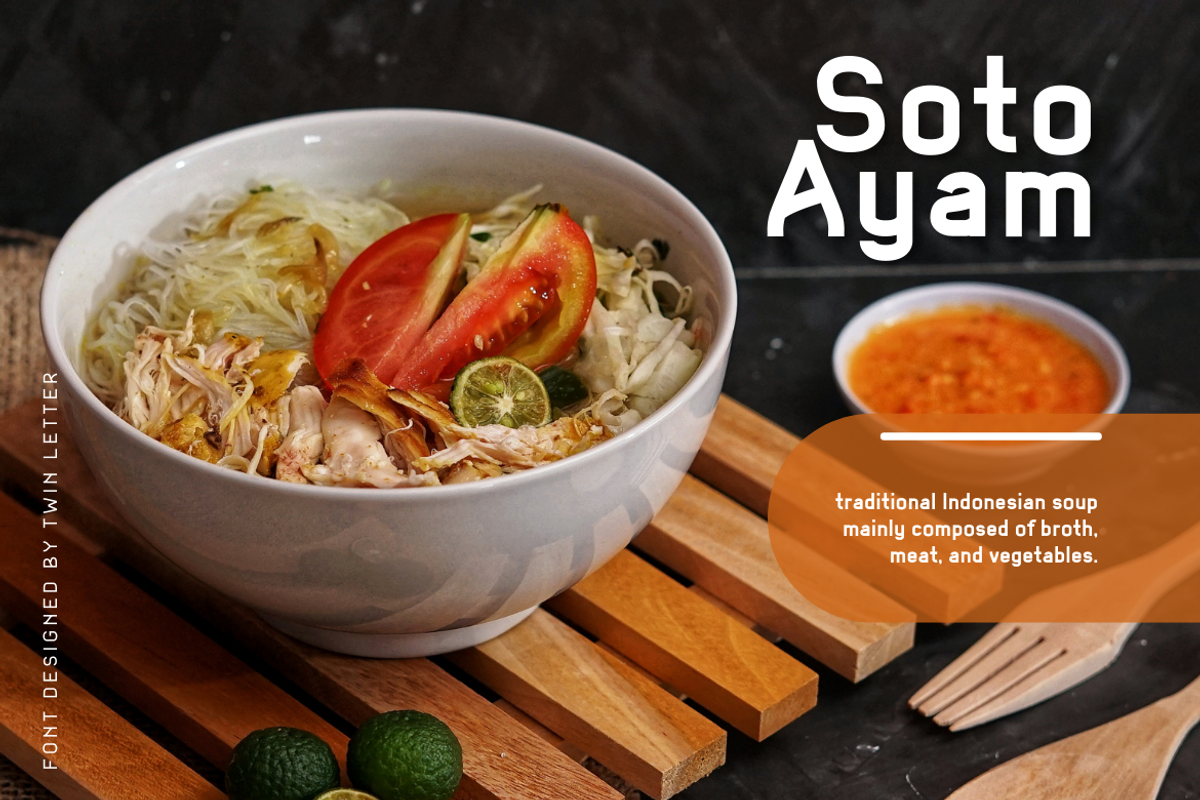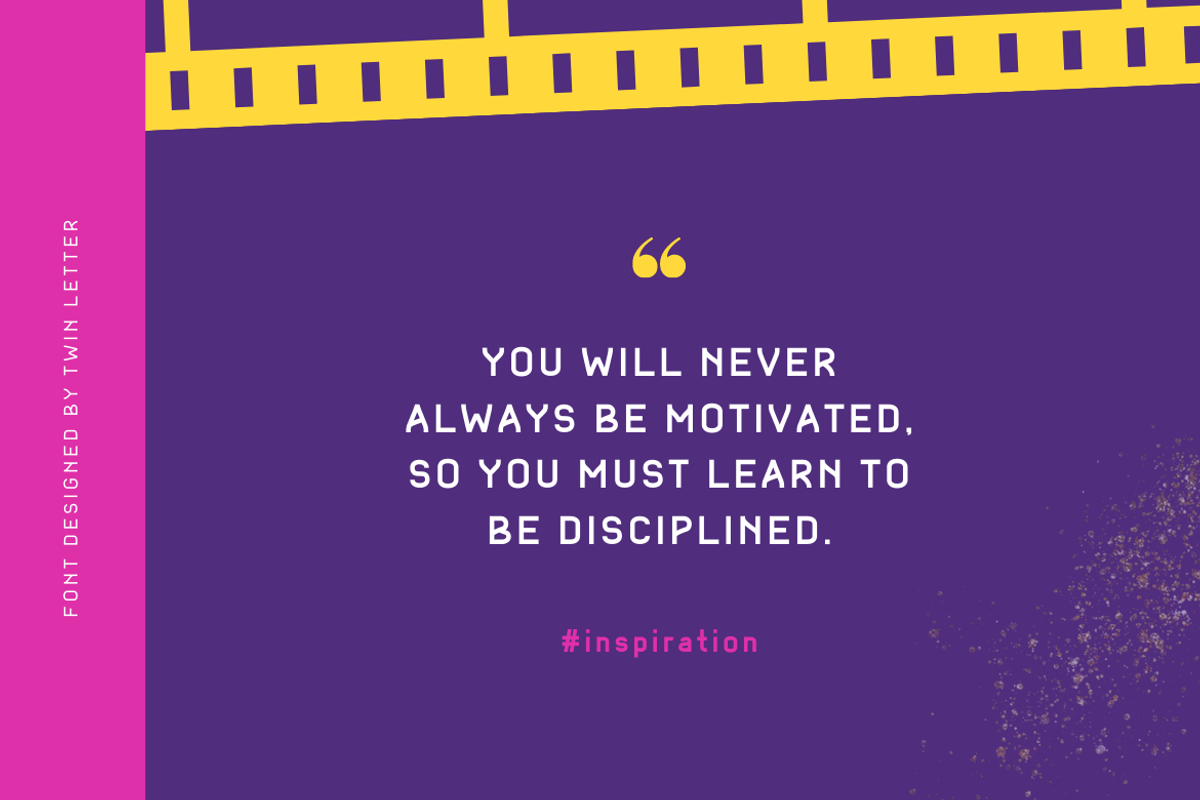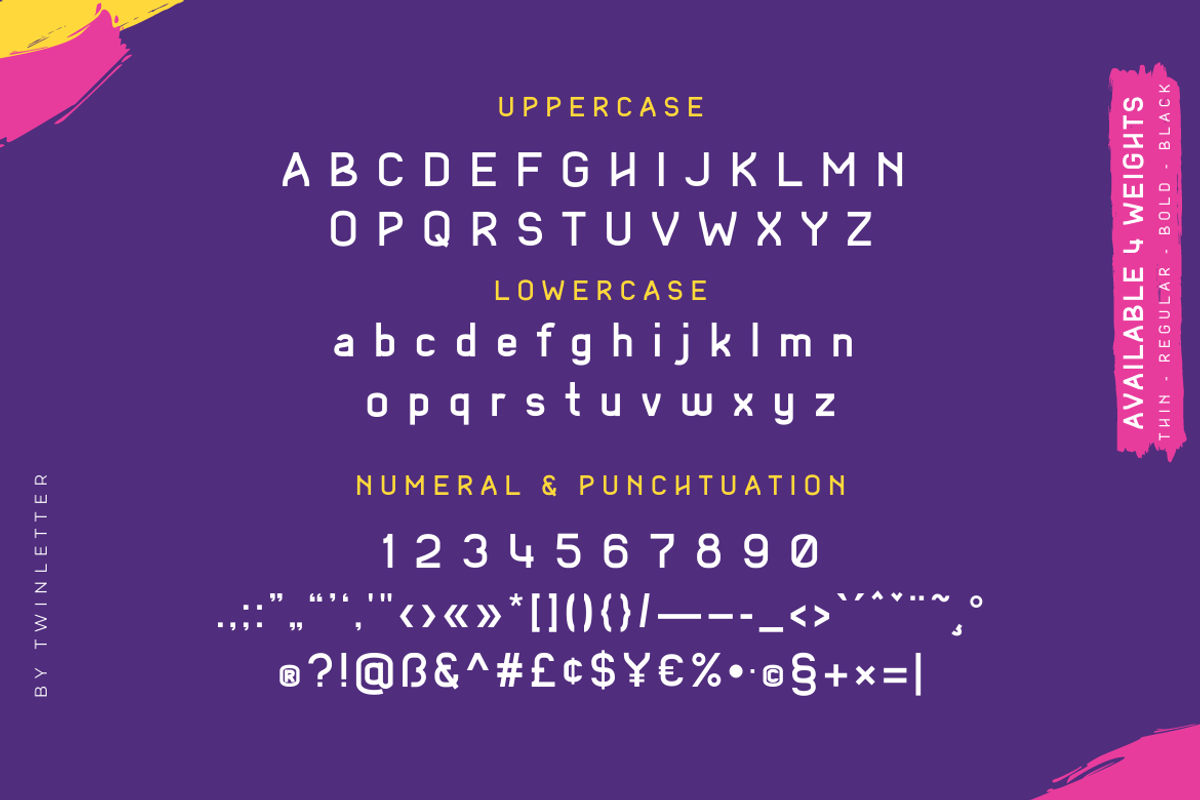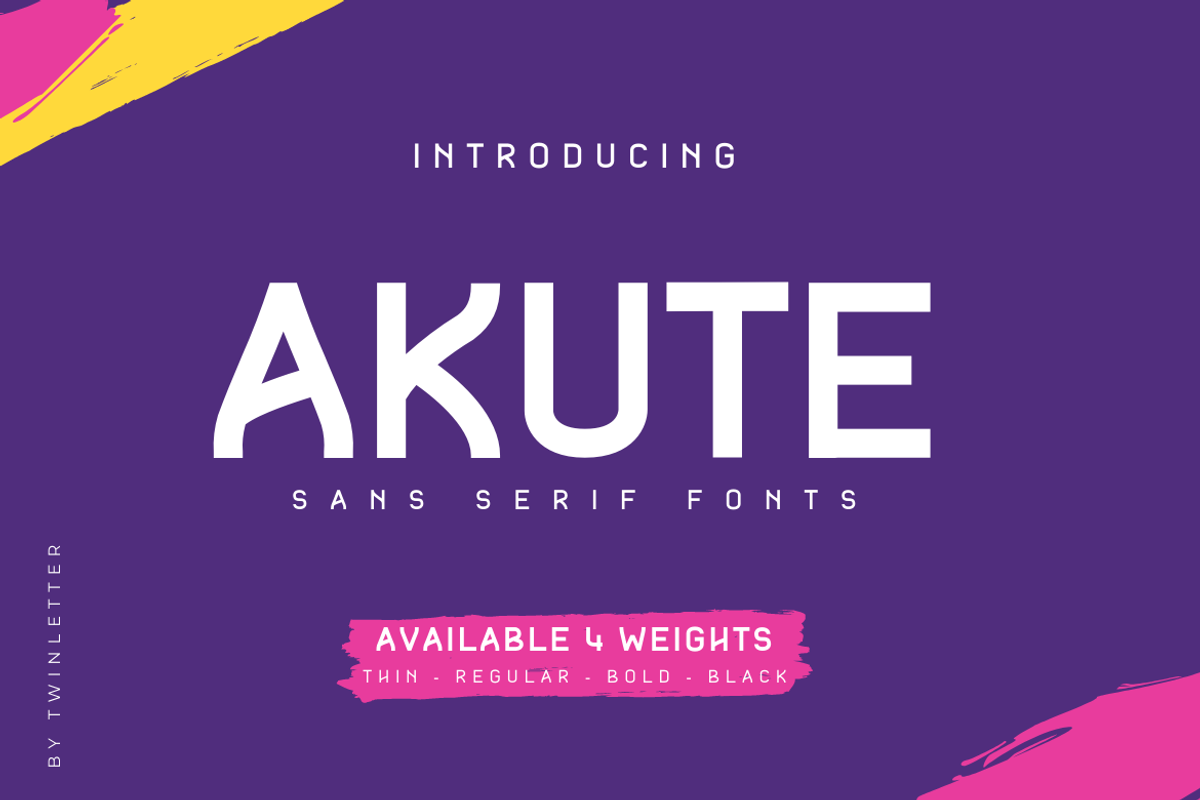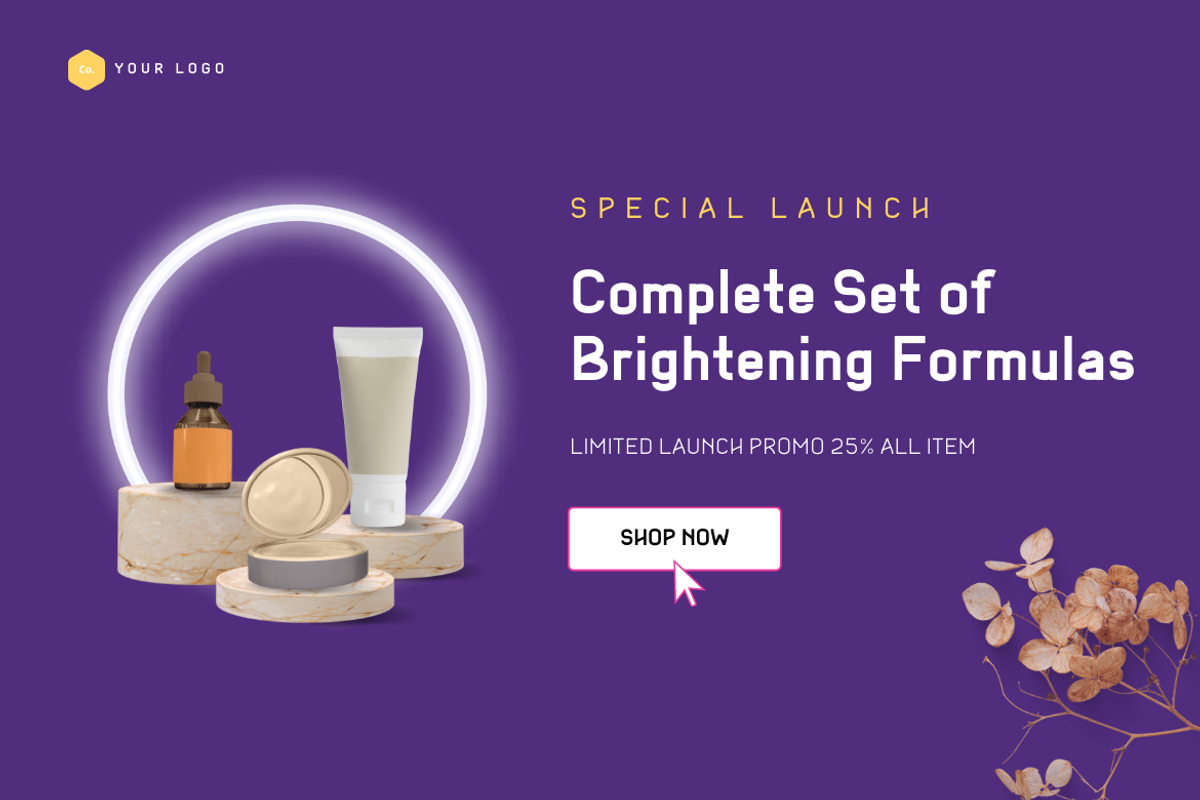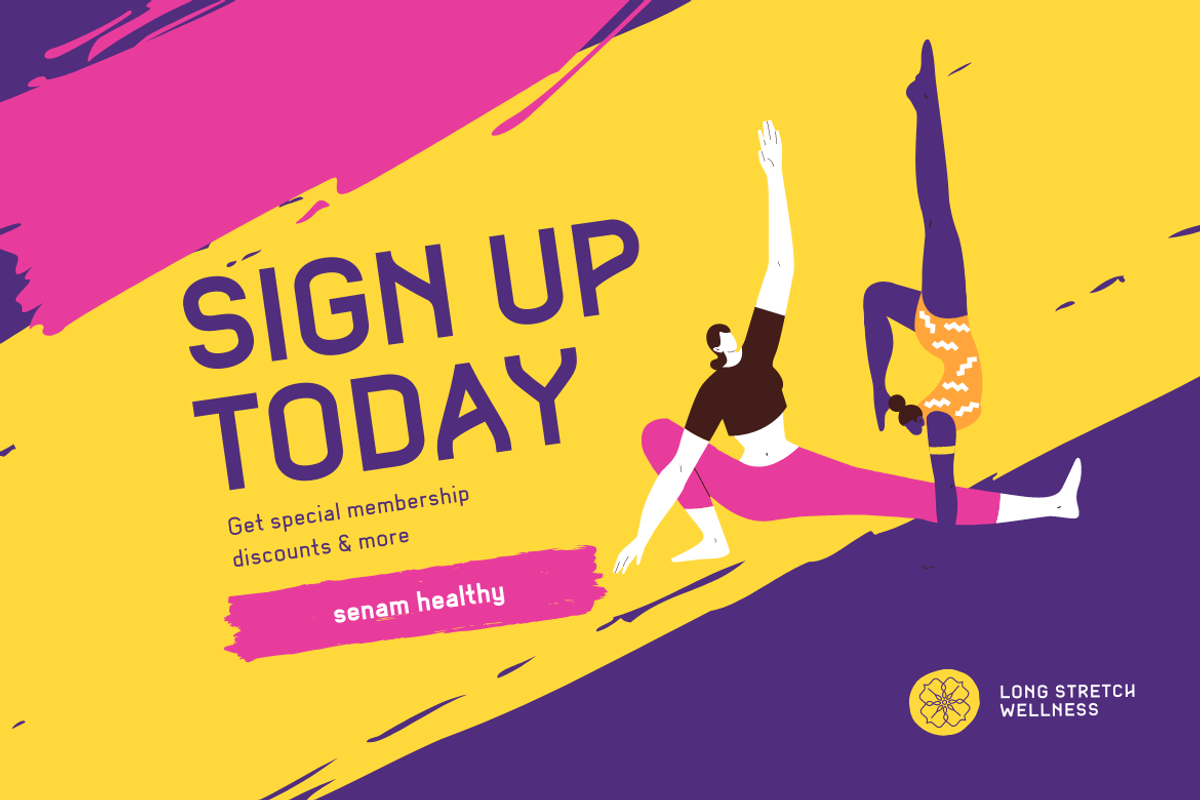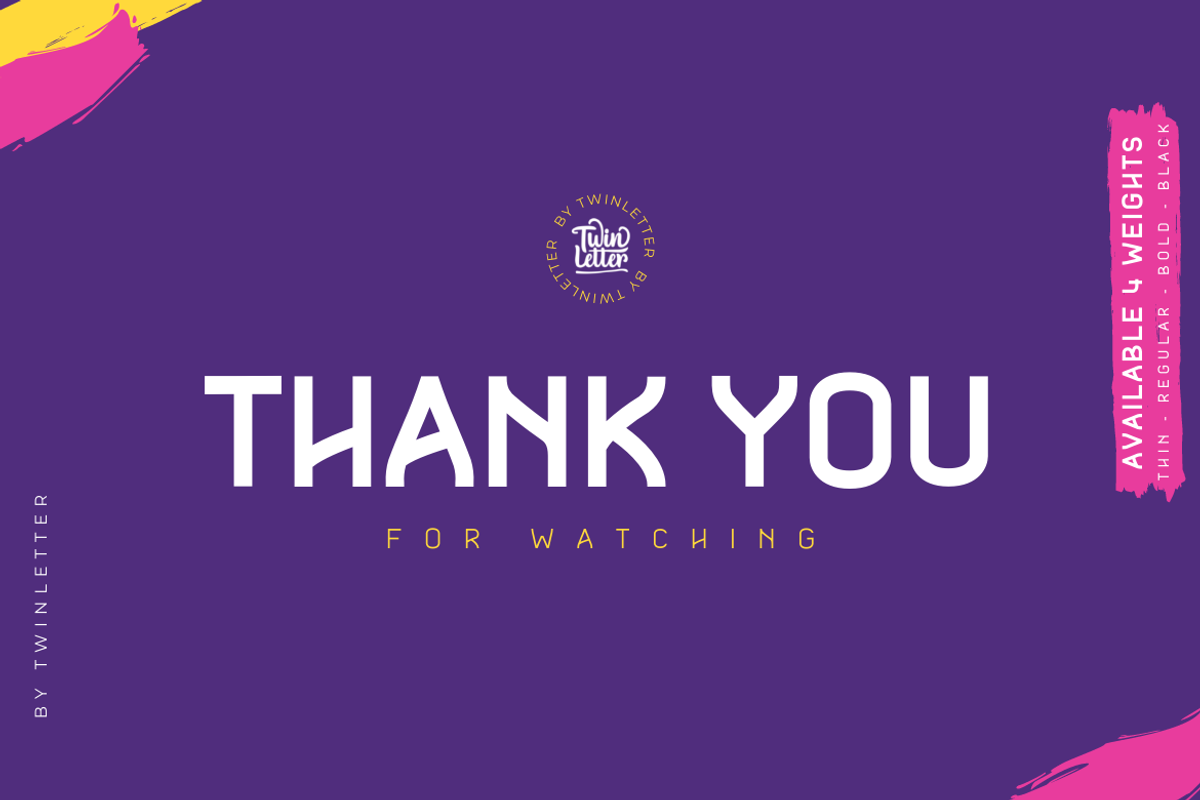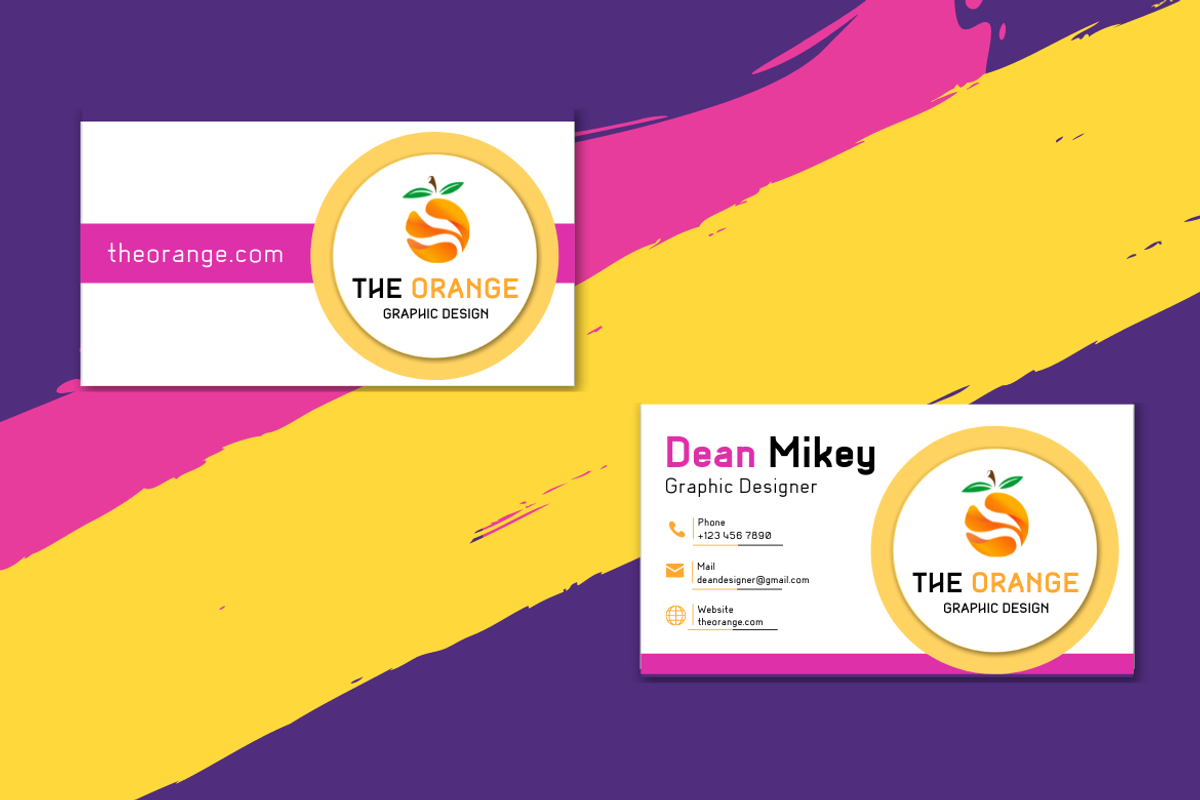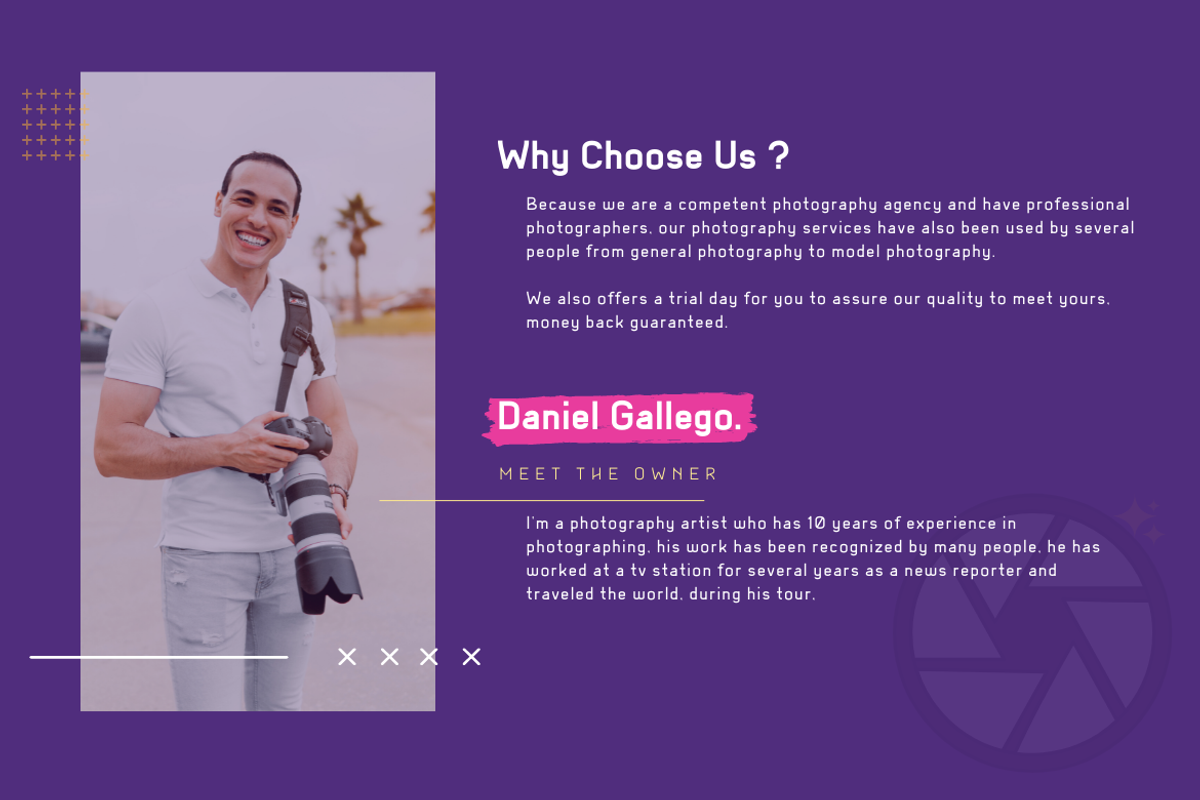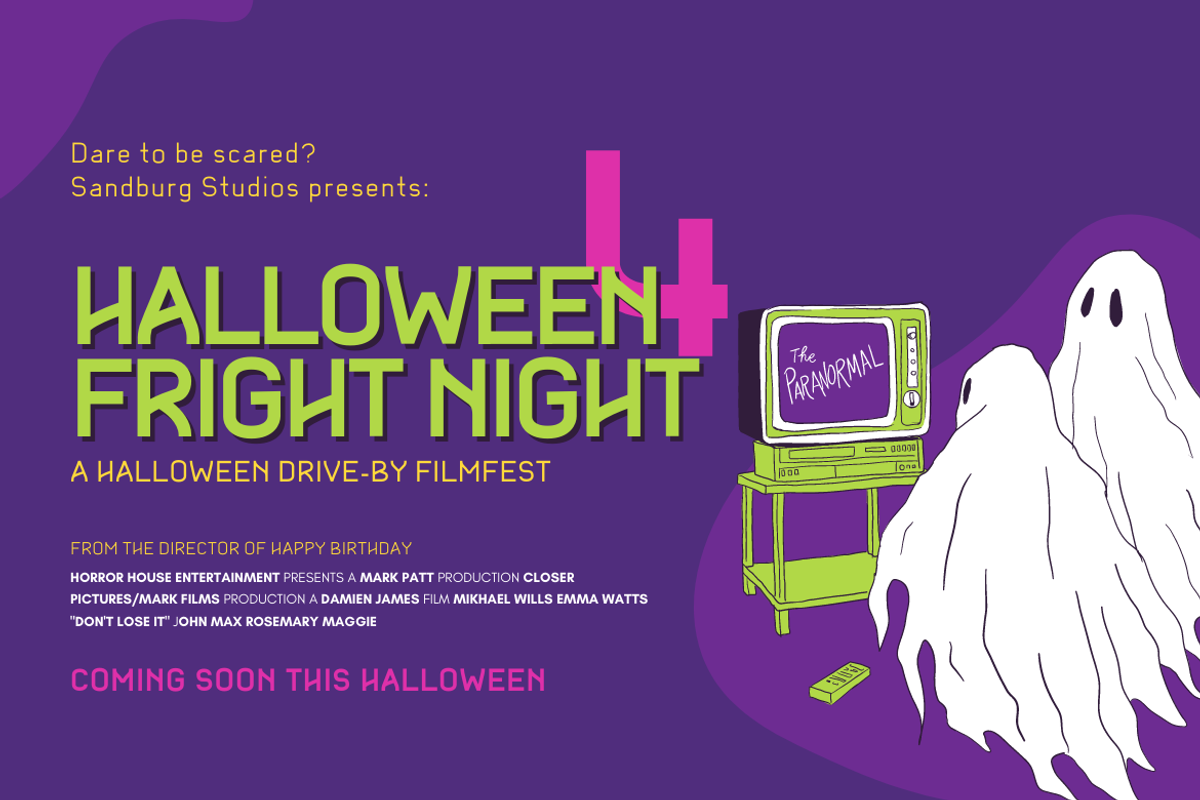
Akute
Akute is a sanserif font that we designed just for you, whether it’s for advertising, branding, or something else. Add value to your brand with a unique form. It’s a terrific opportunity to take advantage of designers or product owners who are looking for a way to make their ideas more classic and elegant. And, in particular, to meet the typeface, linguistic support, numerals, punctuation marks, and alternative four options.
of course, your various design projects will be perfect and extraordinary if you use this font because this font is equipped with a font family, both for titles and subtitles and sentence text, start using our fonts for your extraordinary projects.